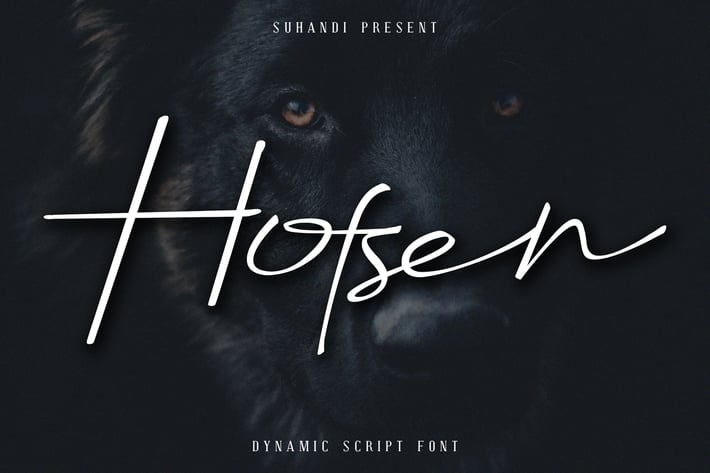
Hofsen Brava Script Font
A beautifully handwritten & designed script font, Has a stron yet have classy & sophiscated feel.
Basic Ligatures
Basic Stylistic Alternate
Handwritten font